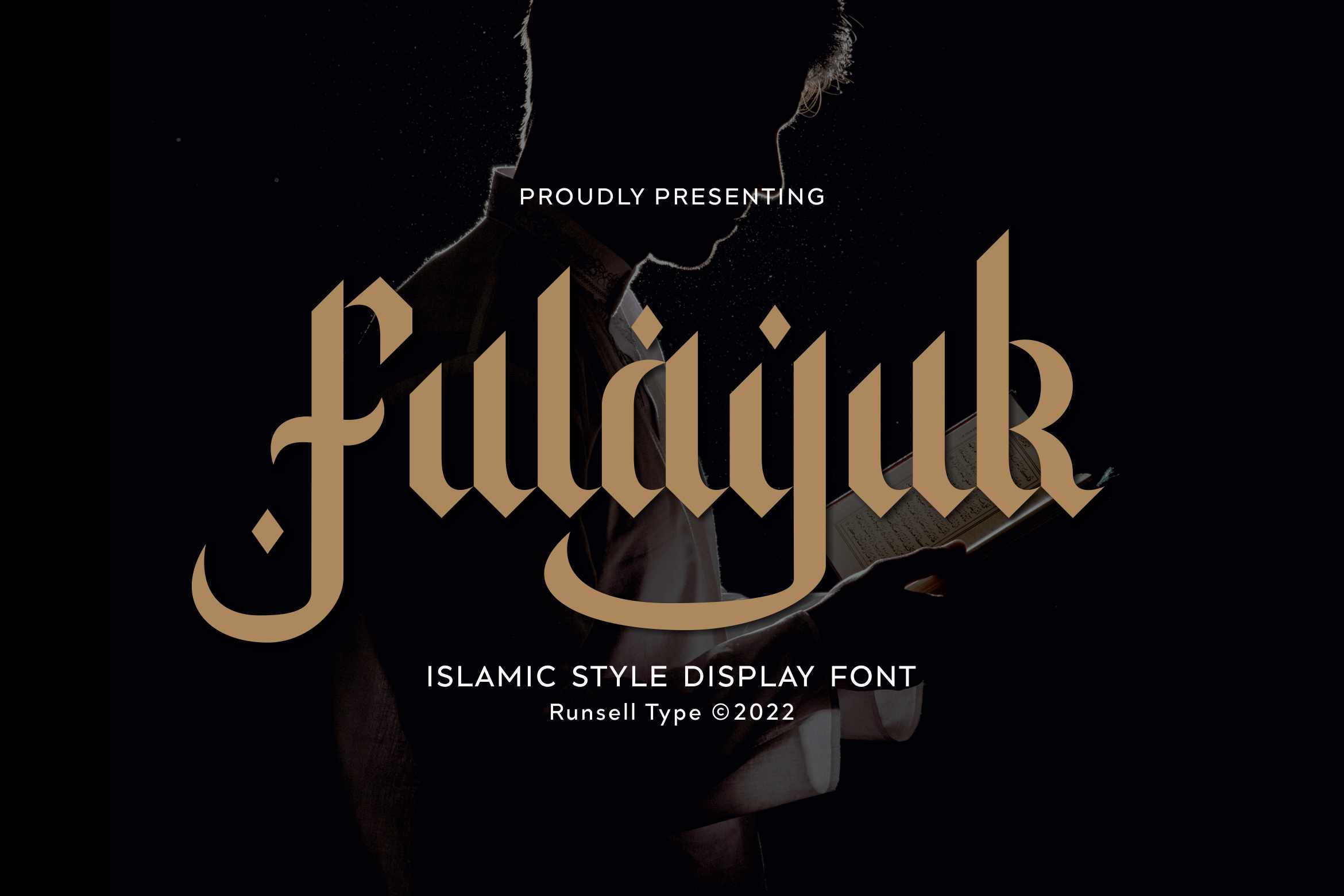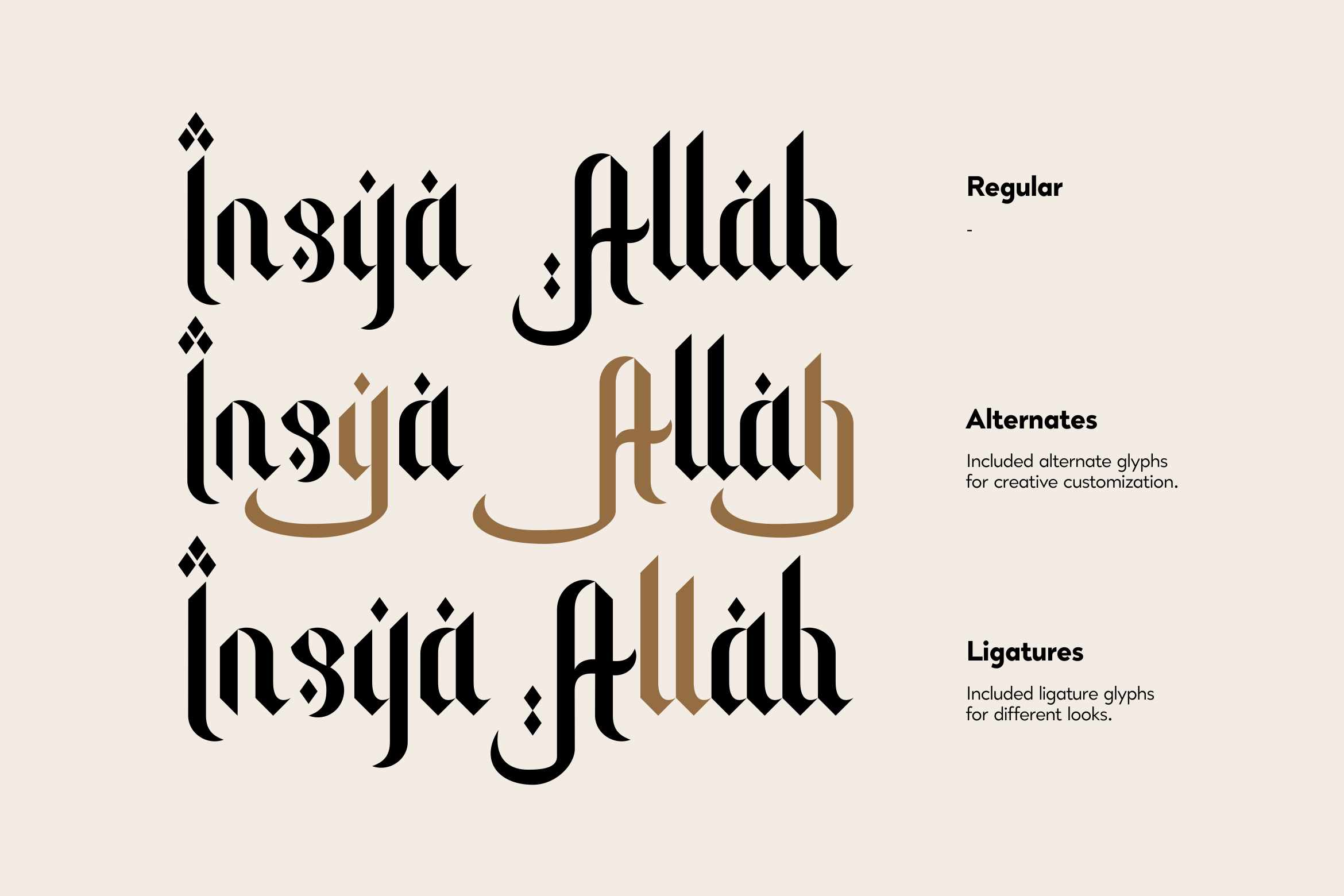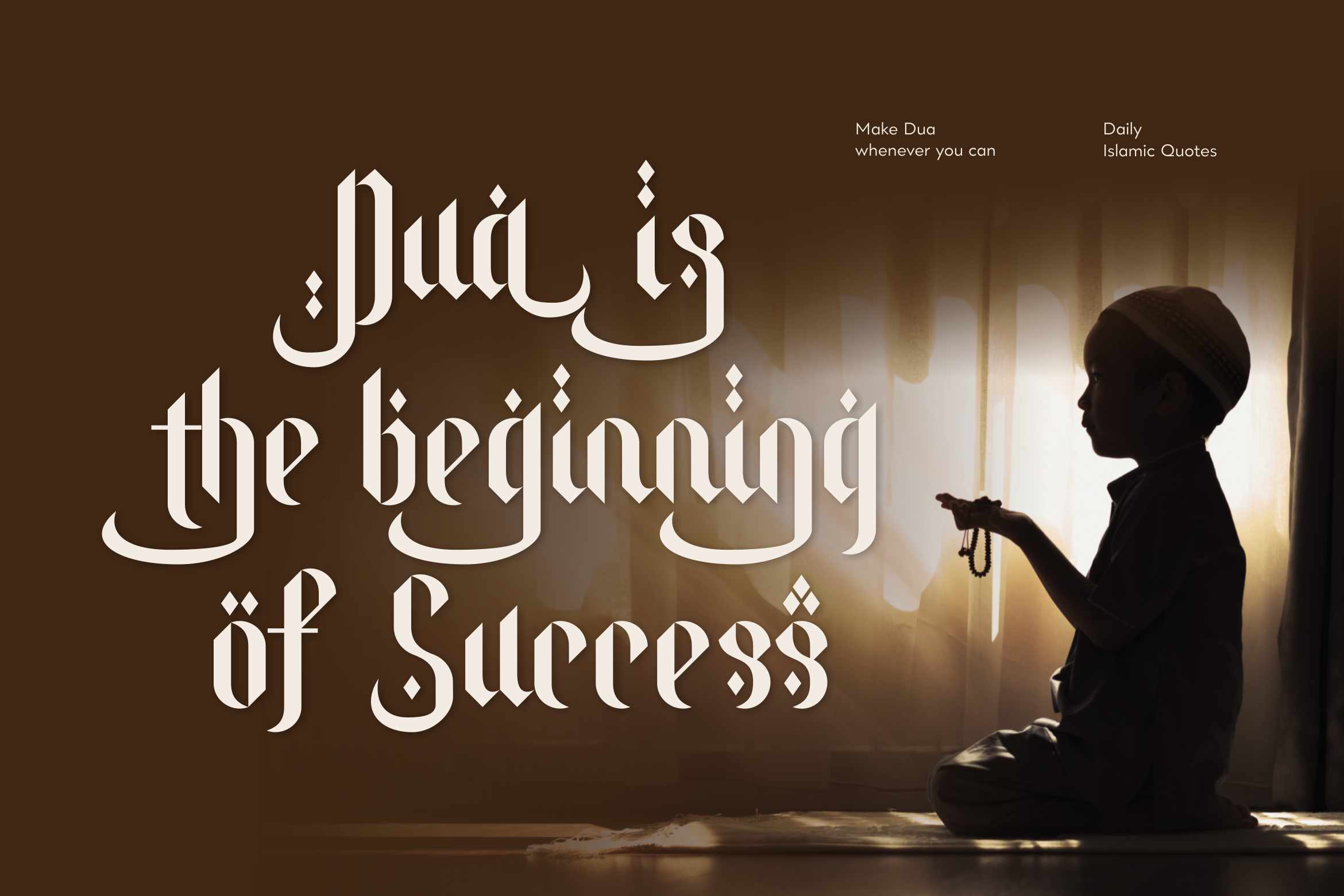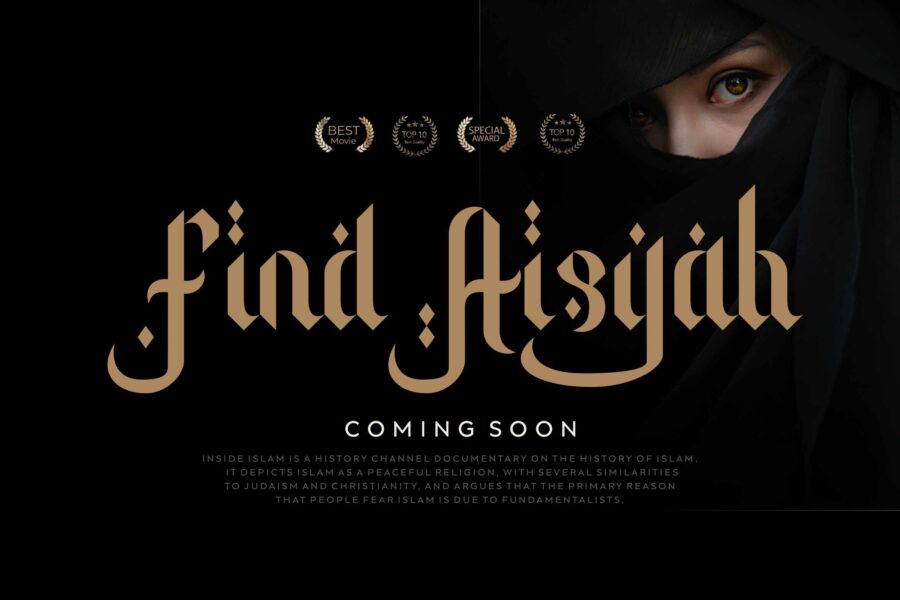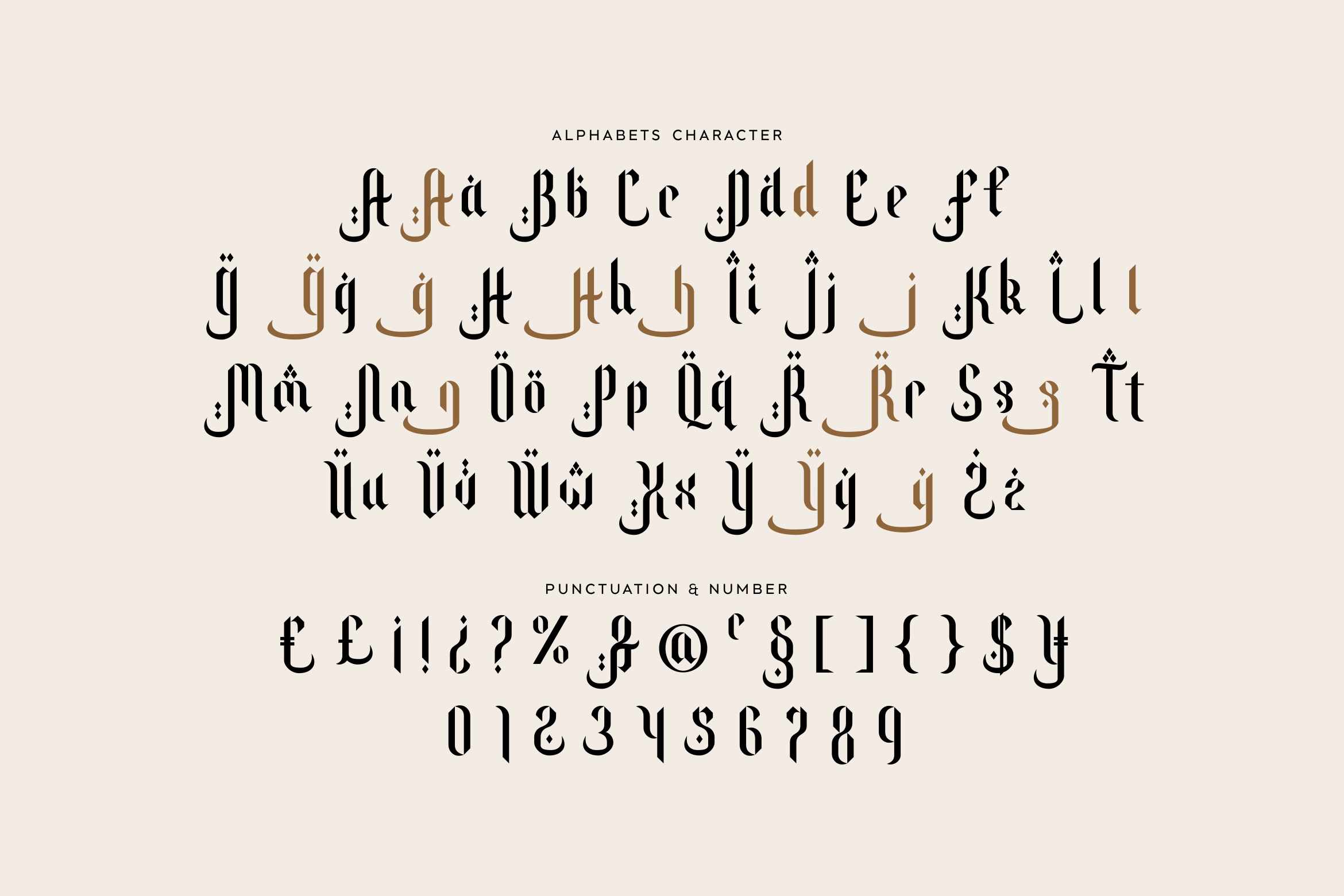
Fulayuk is a bold and elegant Islamic display font that merges gothic calligraphy with Middle Eastern ornamental elements. Inspired by traditional religious scripts and medieval typography, Fulayuk presents a striking combination of sharp strokes and soft curves, enhanced by delicate diacritical-style decorations. This font is designed to evoke spiritual elegance and timeless reverence, making it perfect for religious content, Islamic quotes, branding for modest fashion, or themed poster designs.
With a complete set of alternates and ligatures, Fulayuk offers flexible styling to adapt to various design compositions. Whether you need a typeface that captures a solemn moment or a statement piece for packaging or cinematic titles, this font delivers dramatic flair with refined craftsmanship. Its unique blend of cultural depth and visual drama makes it an ideal choice for faith-based narratives and high-end editorial projects.
Fulayuk